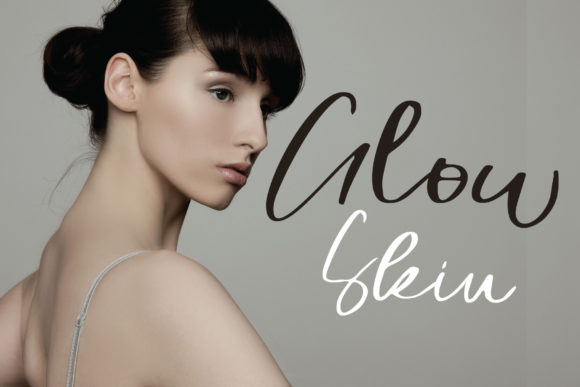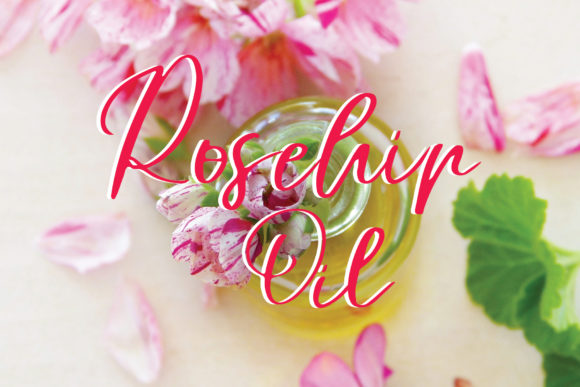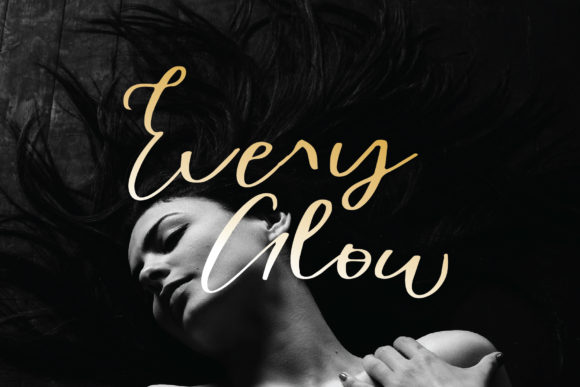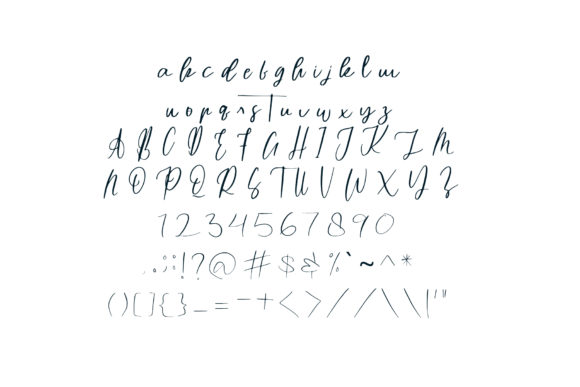
Minim Font
About Minim Font
Minim is a sweet, minimal and elegant script font that’s great for adding that romantic twist to your next design idea. Fall in love with its modern elegance!